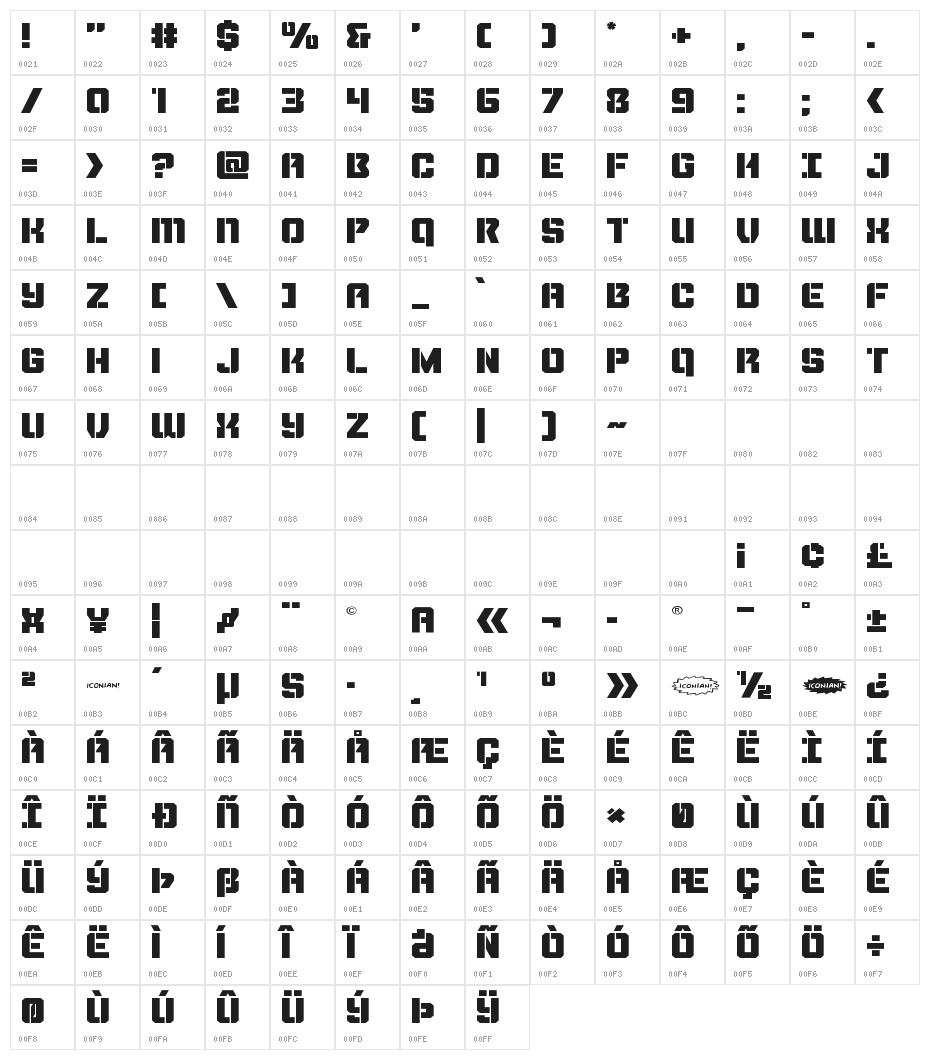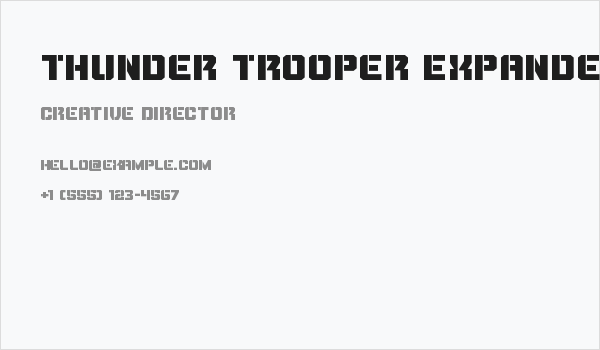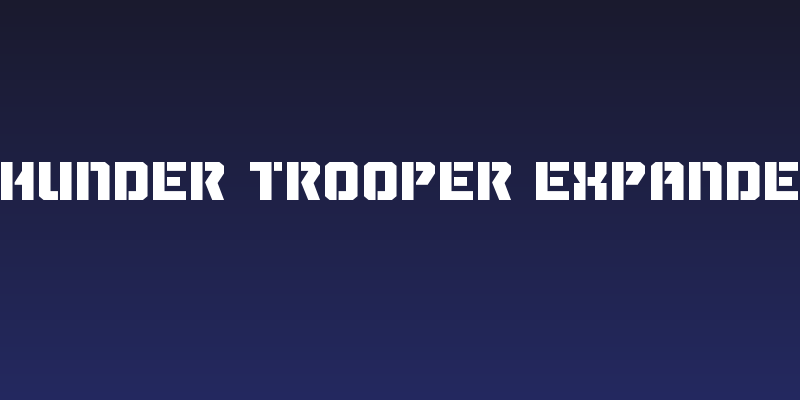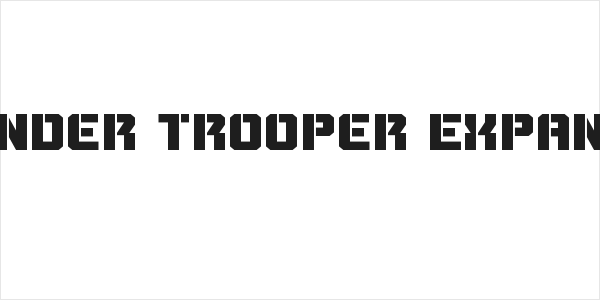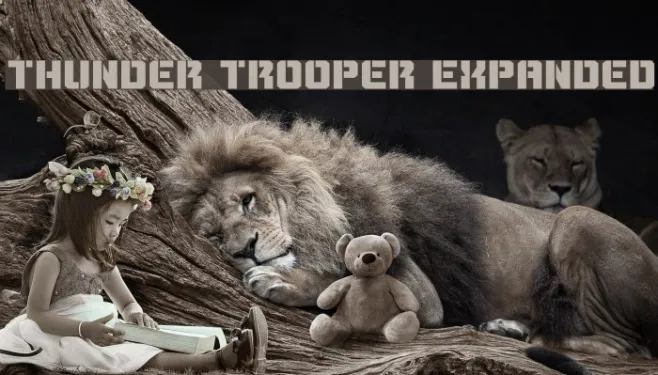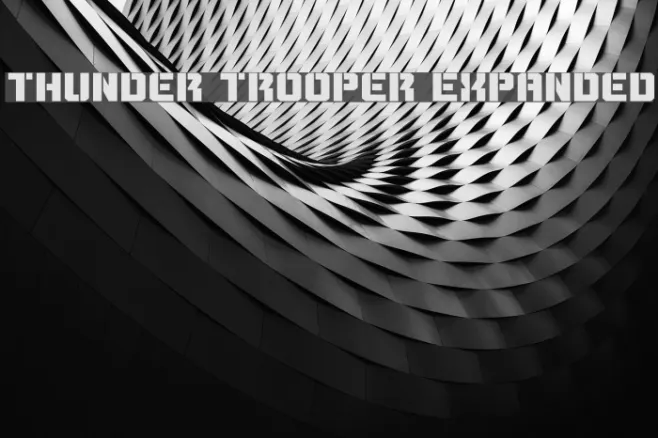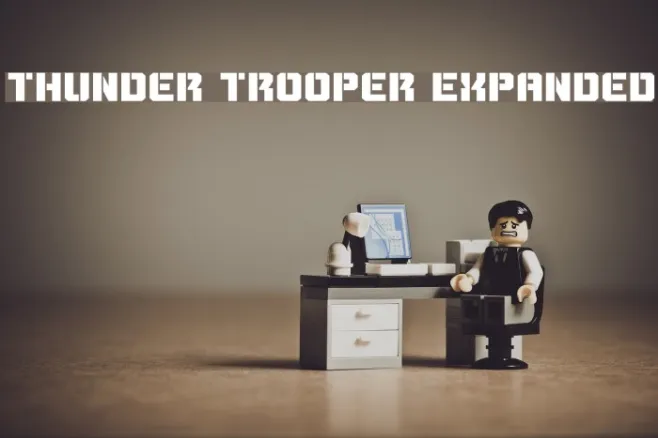
Thunder Trooper Expanded Font
Thunder Trooper Expanded Description
This font is a bold and striking display typeface with a futuristic and geometric design. The characters are constructed with thick, blocky shapes that convey a sense of strength and modernity. The angular cuts and sharp edges give it a distinctive, almost industrial feel. It features uppercase and lowercase letters, numbers, and a range of special characters, all maintaining a consistent style. The font's expanded width and uniform stroke weight make it highly visible and impactful, ideal for grabbing attention.
| Overall Style | Futuristic, Industrial |
| Proposed Projects | Ideal for use in sci-fi themed projects, video game titles, posters, and branding that requires a strong, modern look. |